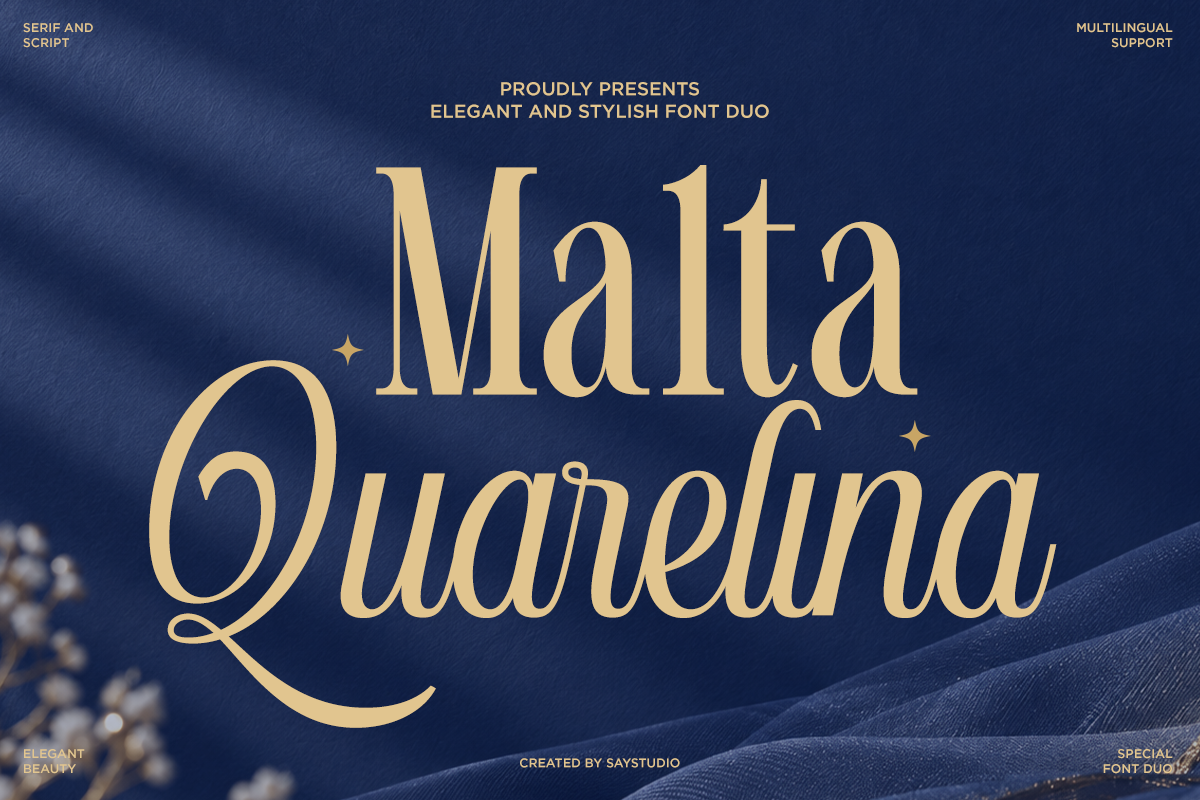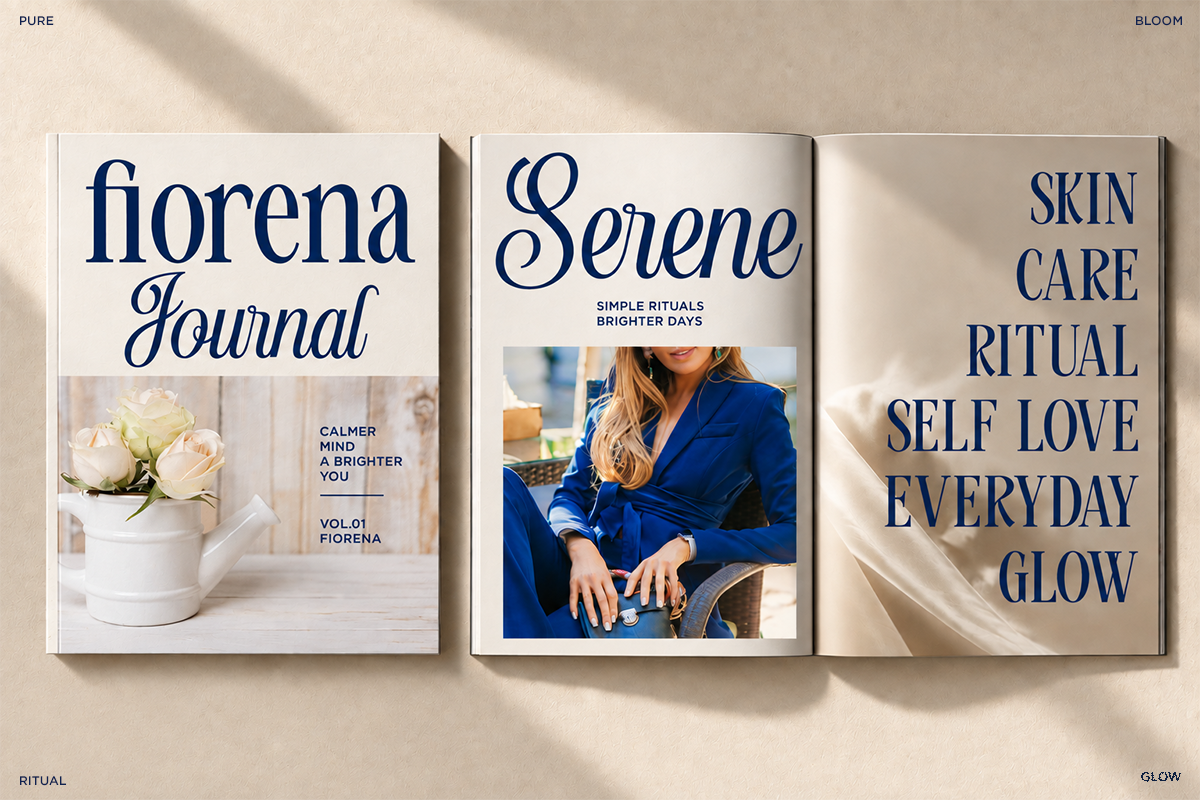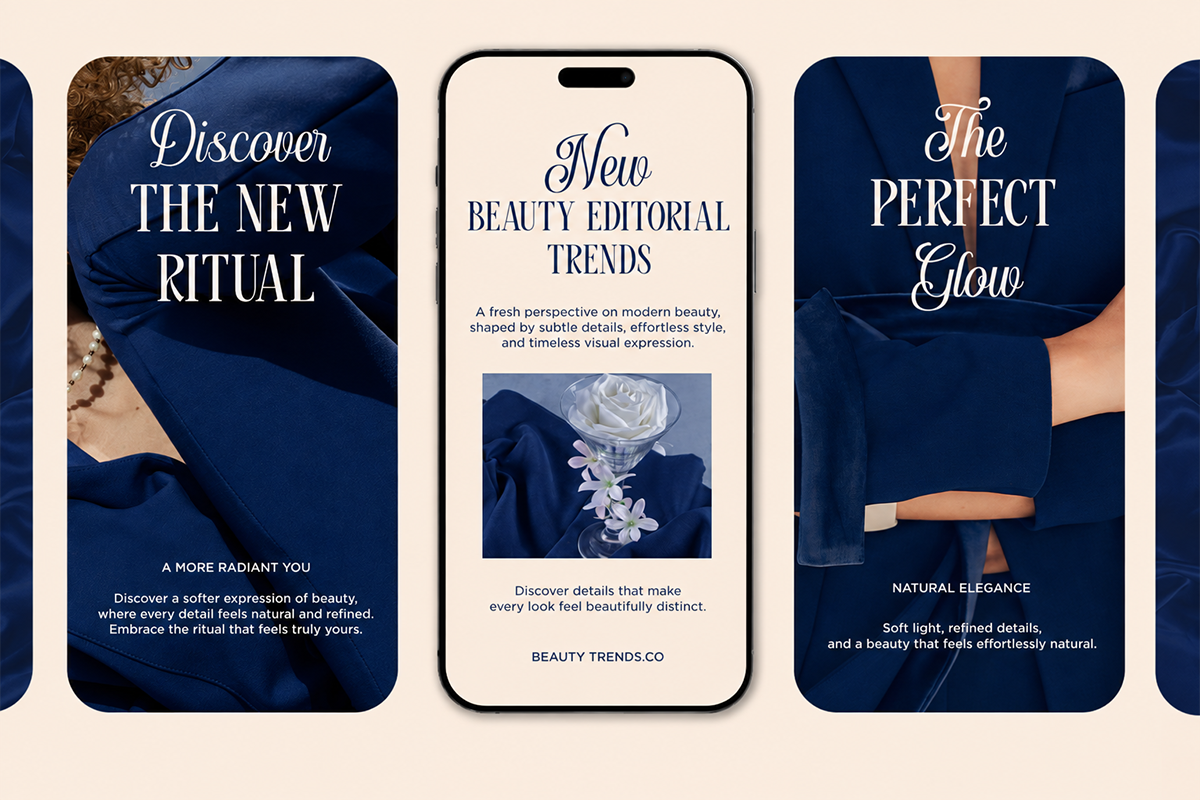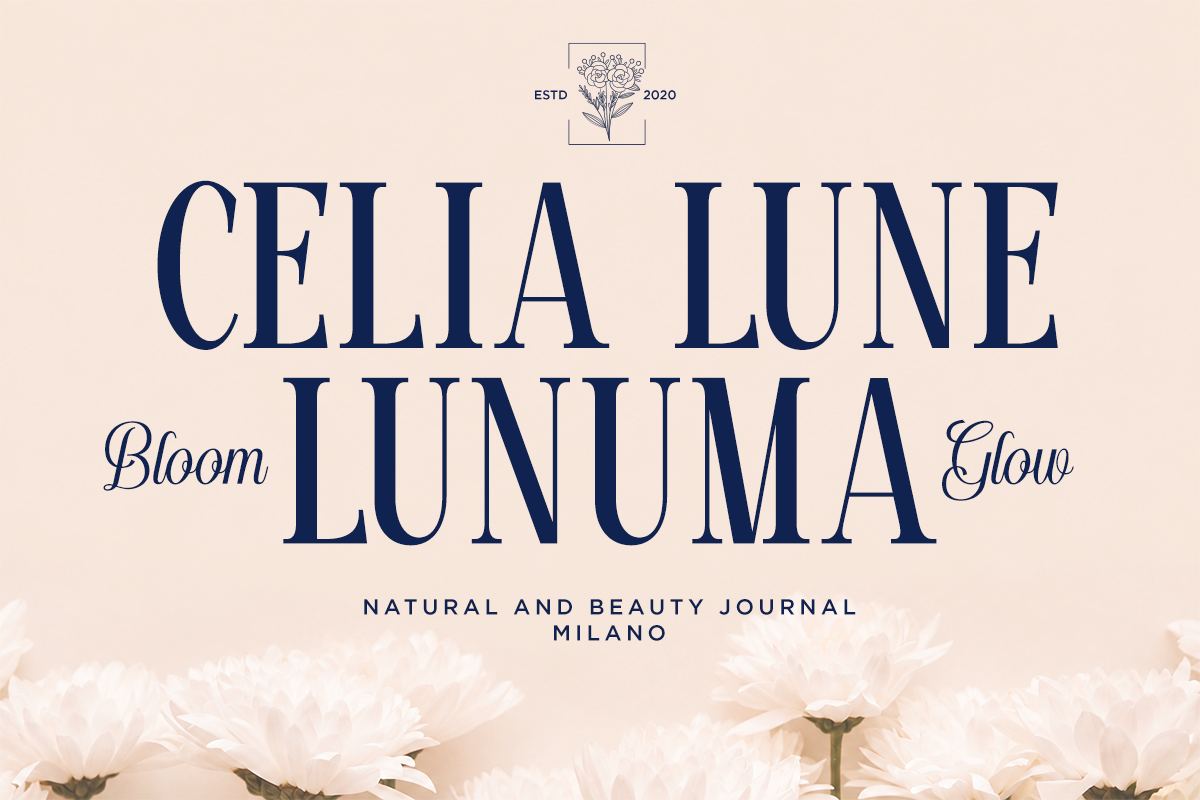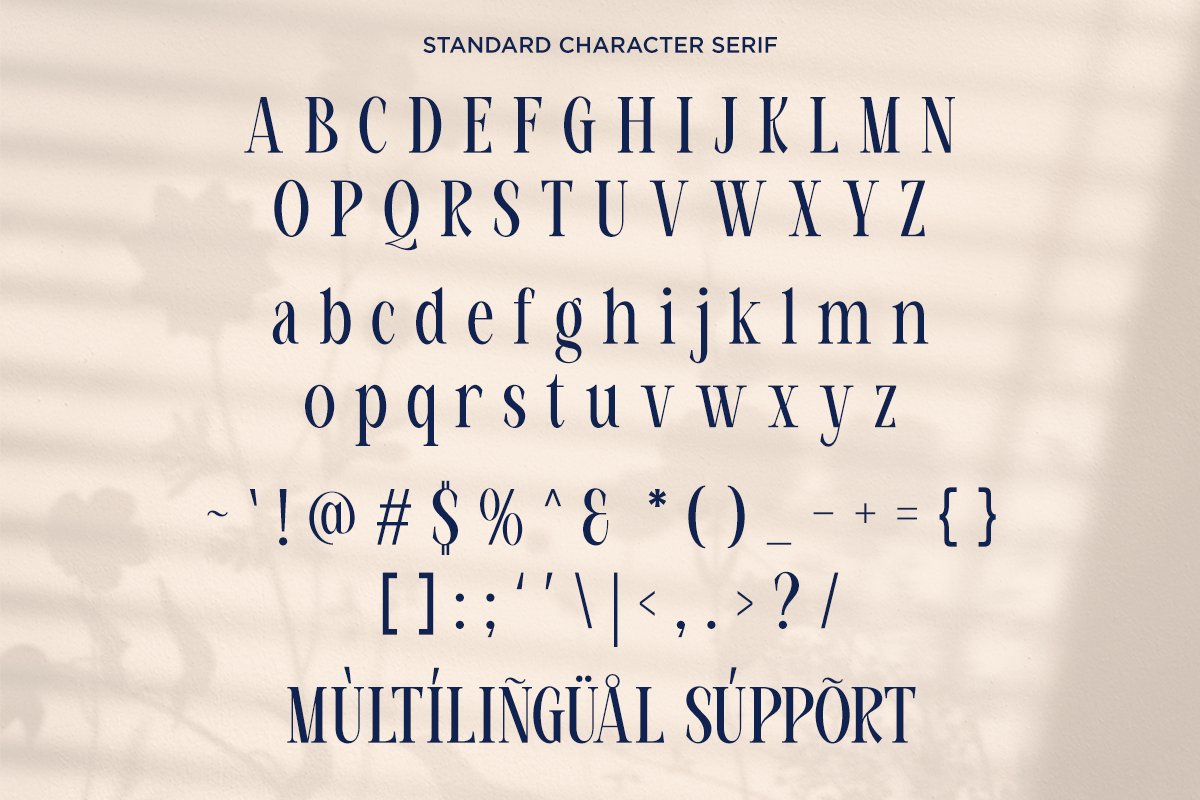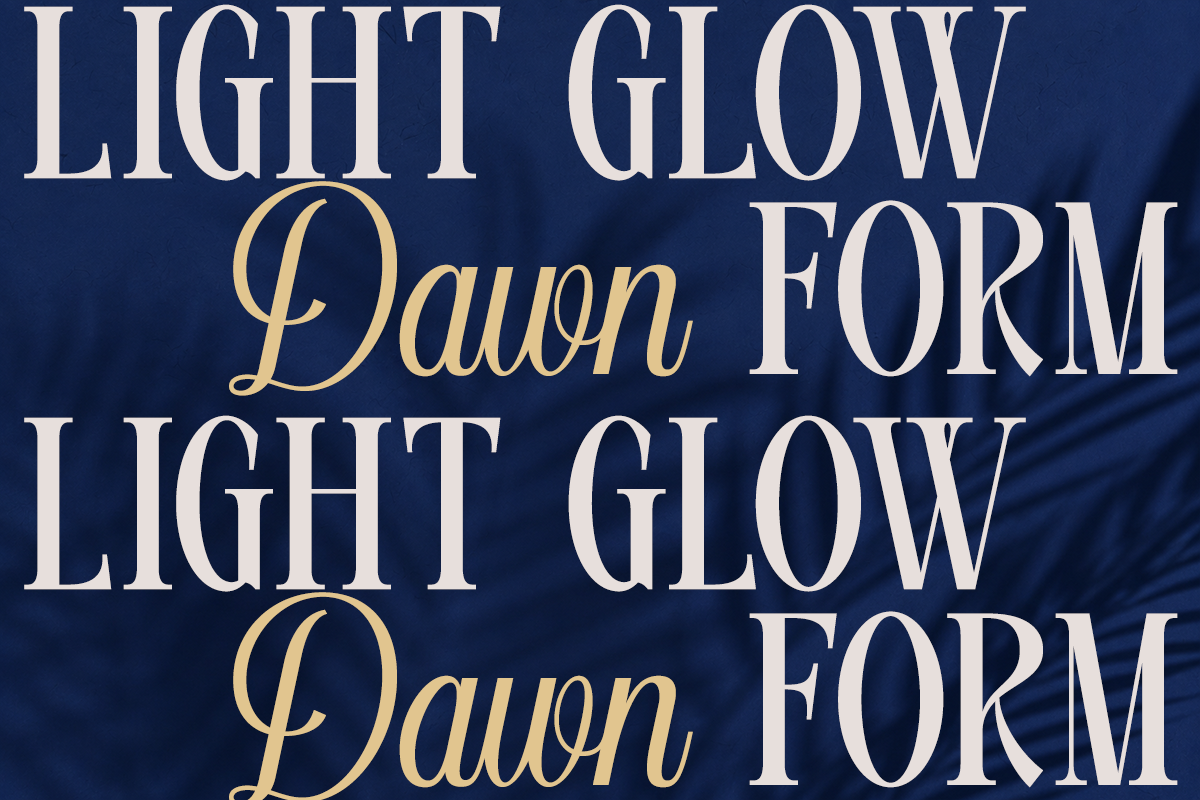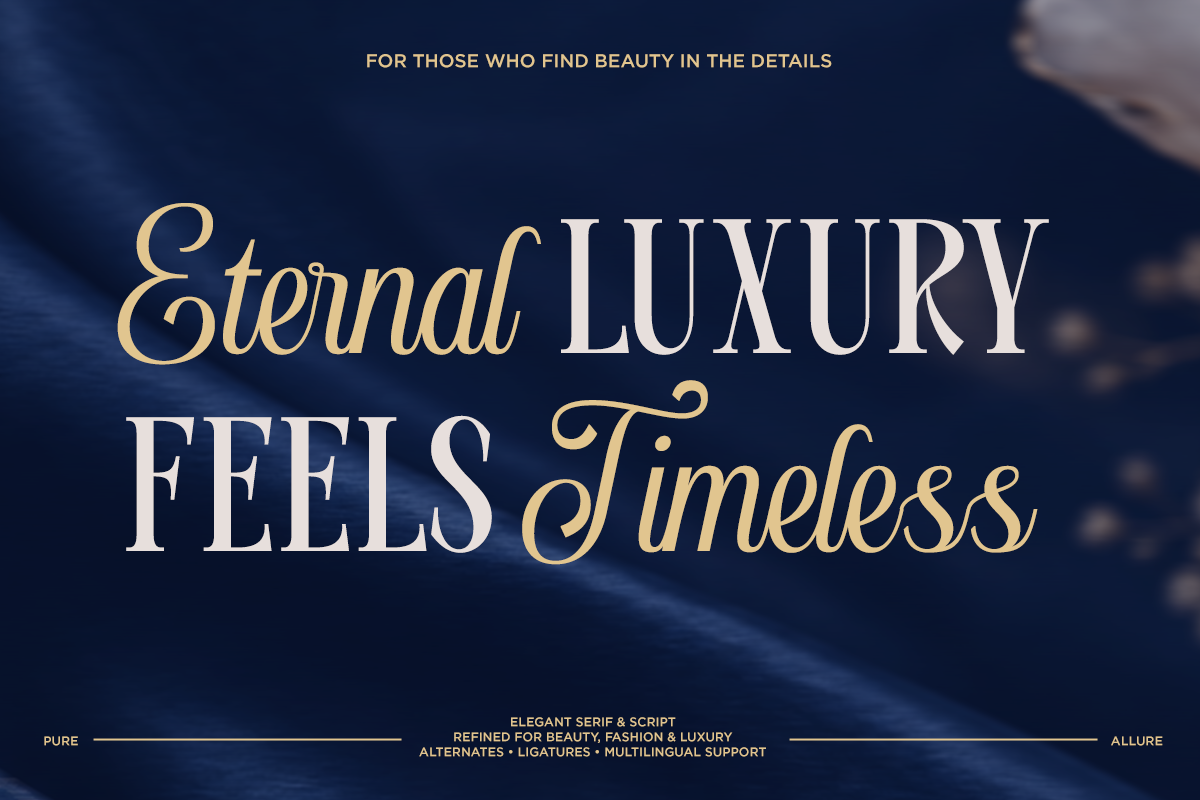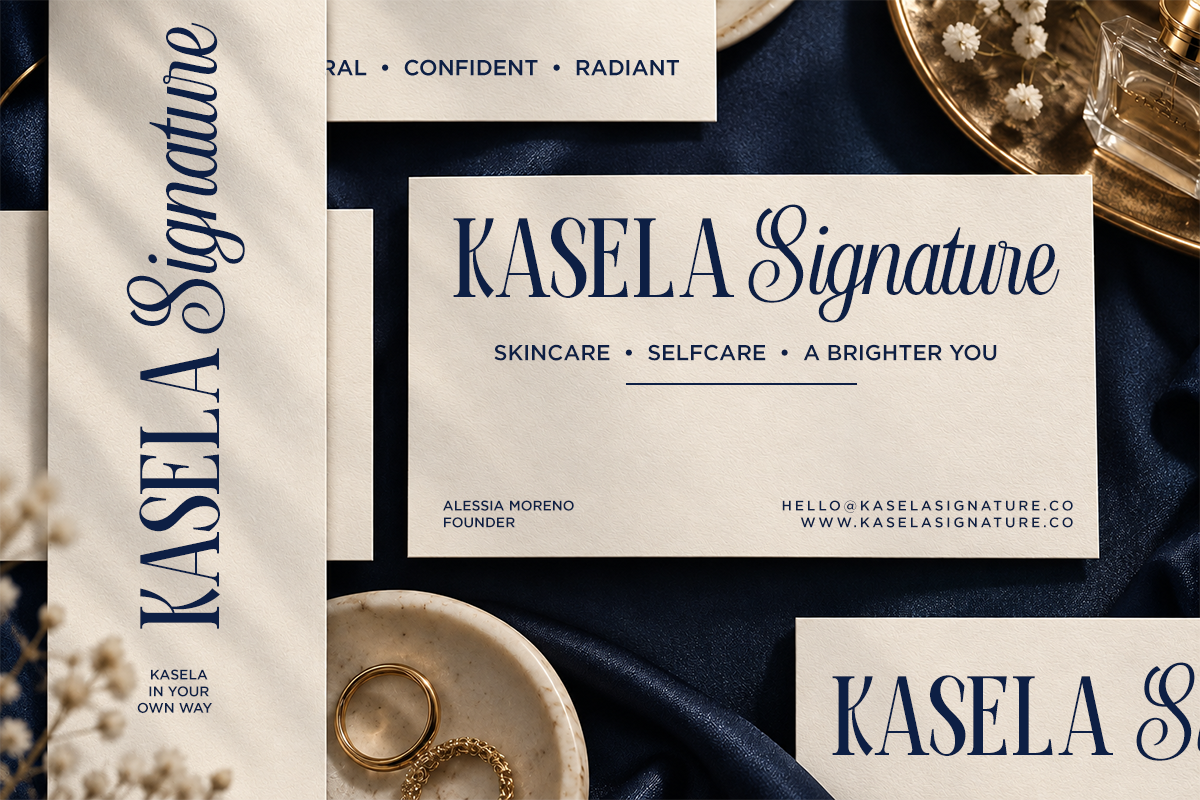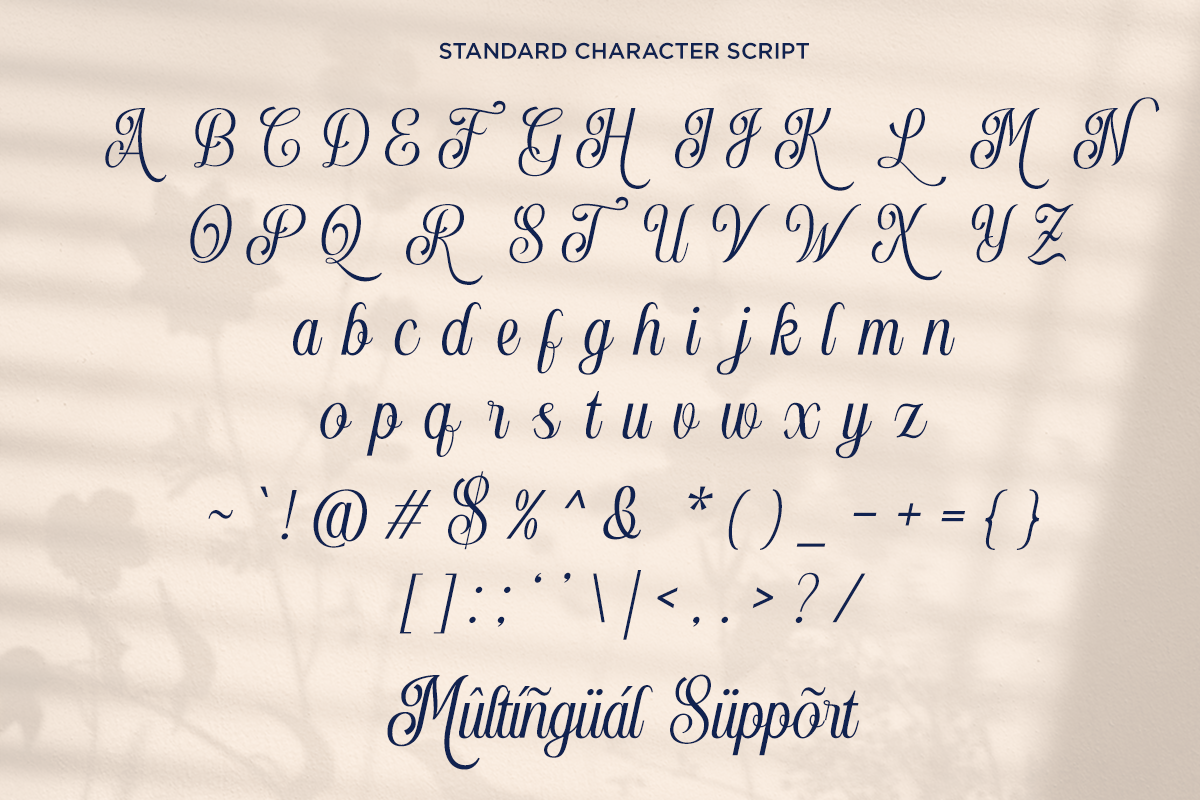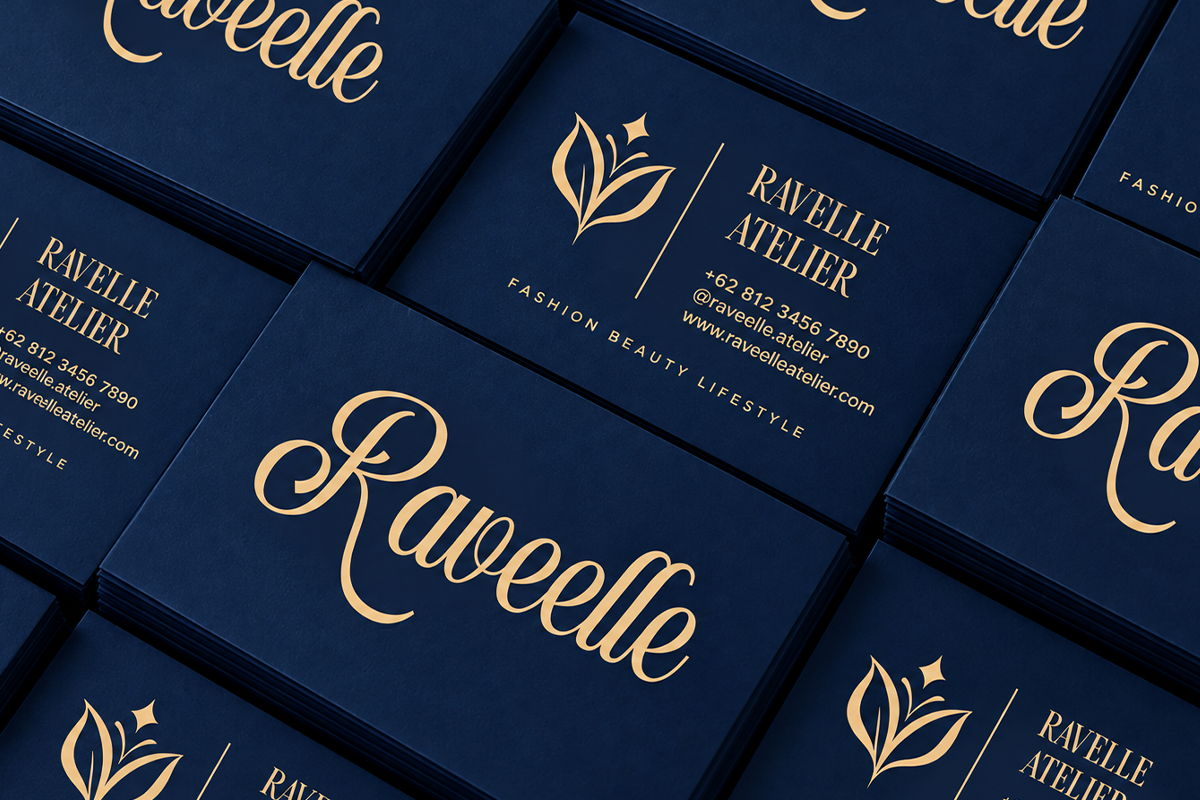
Malta Quarelina - Duo Luxury Font
Malta Quarelina is a sophisticated font duo that combines an expressive script with a refined serif, creating a beautiful contrast between graceful lettering and elegant editorial typography. Designed with a luxurious and fashionable character, this combination brings a polished visual presence to both classic and contemporary projects.
The script adds a personal, flowing touch, while the serif provides structure, sophistication, and strong readability. Together, they work beautifully for fashion branding, beauty products, skincare, cosmetics, perfume packaging, wedding invitations, editorial layouts, stationery, social media designs, logos, headlines, and luxury promotional materials.
Malta Quarelina is a versatile choice for designers looking to create a premium visual identity with distinctive typographic contrast. Use the script for signatures, names, and decorative statements, then pair it with the serif for headlines, supporting text, and branding compositions. The font duo includes OTF, TTF, and WOFF formats, making it suitable for a wide range of creative workflows.
Serif and Script
Number, Symbols, and Punctuation